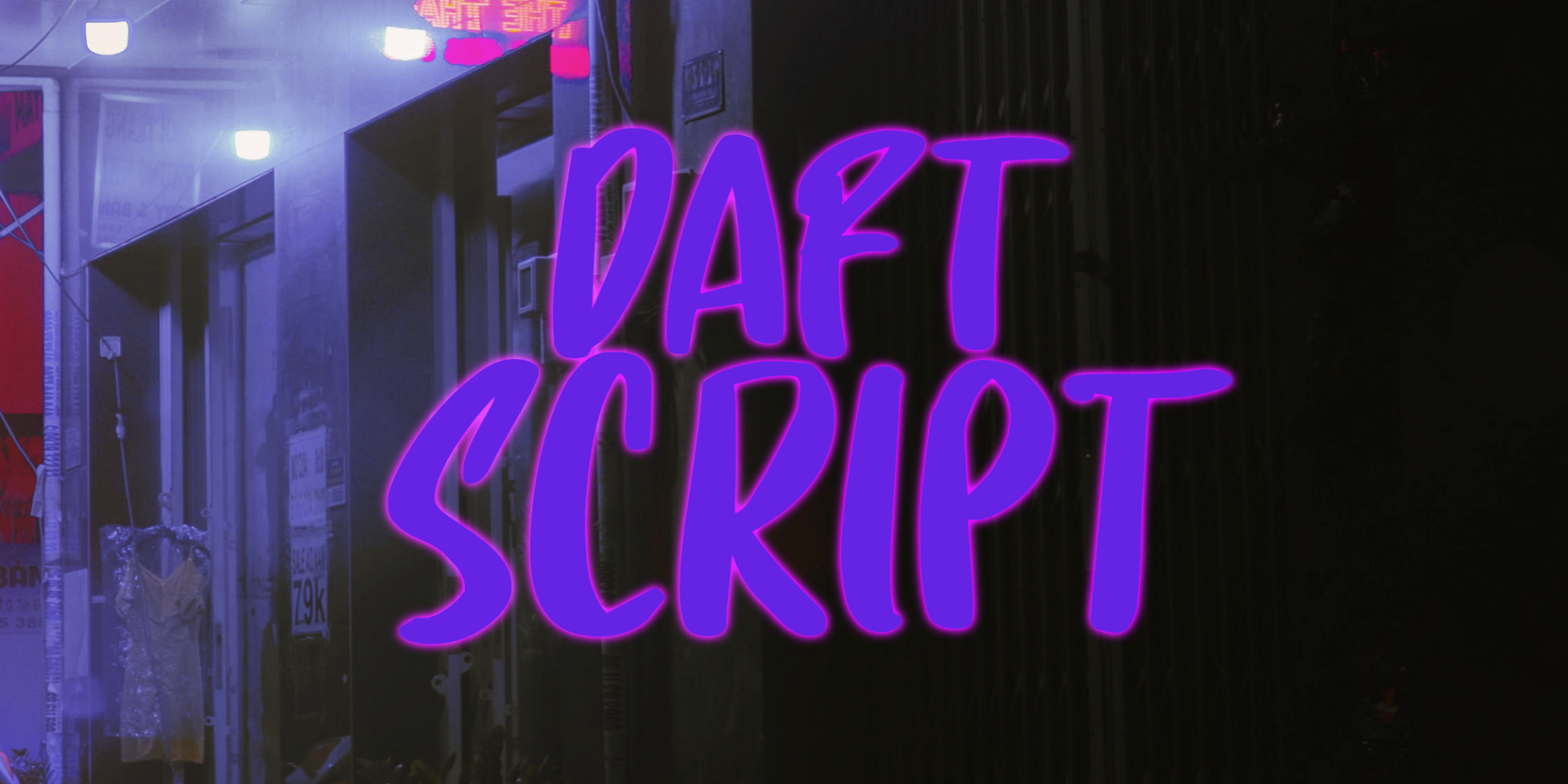
Daft Script Font is perfect for quirky brand logos, playful greeting cards, humorous poster designs, whimsical packaging labels, creative agency branding, fun product advertisements, comic book lettering, children's book titles, eccentric restaurant menus, and any project requiring unconventional creativity with playful personality and delightfully quirky artistic expression.
What makes Daft Script Font exciting is its playful eccentricity and whimsical character that captures the joyful spirit of creative rebellion and the delightful unpredictability of artistic freedom. The typeface features loose, hand-drawn letterforms with irregular curves and spontaneous details that evoke the carefree energy of artistic experimentation and the infectious enthusiasm of creative minds at play. Its quirky character design speaks to audiences who appreciate humor, creativity, and the liberating power of unconventional thinking, making it perfect for creative brands seeking to communicate originality, fun, and the refreshing authenticity of artistic expression that dares to be different and delightfully unpredictable.
Daft Script Font family includes regular and bold weights with complete character sets featuring uppercase and lowercase letters, playful numerals, quirky punctuation marks, and whimsical decorative elements. The typeface incorporates hand-drawn design principles and spontaneous artistic techniques that enhance its eccentric appearance while maintaining excellent readability across all creative applications and unconventional design projects.
Whether you're creating creative agency branding, designing playful marketing materials, or developing unconventional advertising campaigns, Daft Script Font Free Download provides the perfect typographic foundation that celebrates artistic freedom and creative rebellion. The font's quirky appeal and eccentric character make it particularly effective for creative agencies, humor brands, and artistic ventures. Its whimsical aesthetics translate joyfully across creative signage, artistic publications, and digital platforms, ensuring your brand communicates the kind of authentic creativity and playful spirit that resonates with audiences seeking original thinking and the delightful surprise of unconventional artistic expression.